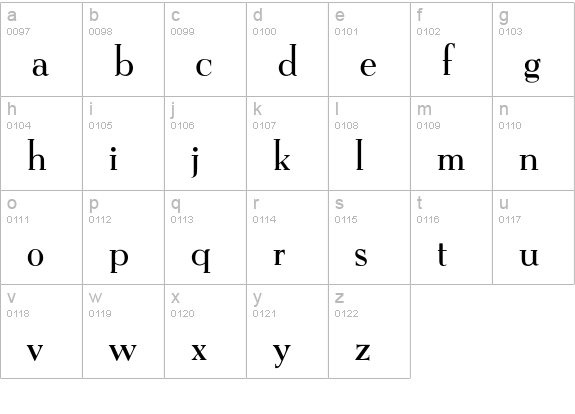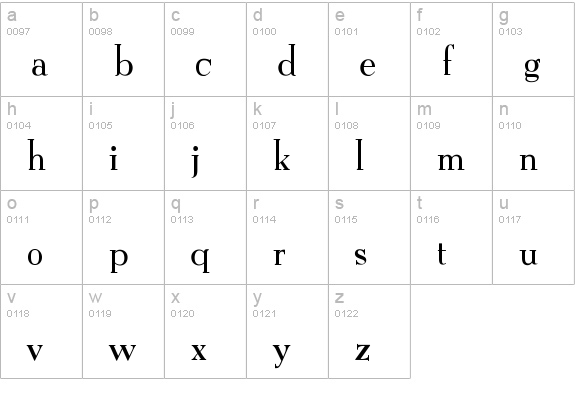
XenonMedium Font Details
Introducing XenonMedium font, a versatile and modern typeface that is perfect for a wide range of design projects. With its clean lines and contemporary look, XenonMedium exudes sophistication and style. This font is ideal for creating sleek logos, elegant headlines, and eye-catching marketing materials. What's even better is that XenonMedium is available for free download at FontsMarket.com. You can easily access this high-quality font and use it in your projects without any cost. Don't miss out on the opportunity to enhance your designs with the timeless appeal of XenonMedium font. Download it today and elevate your creativity to new heights.